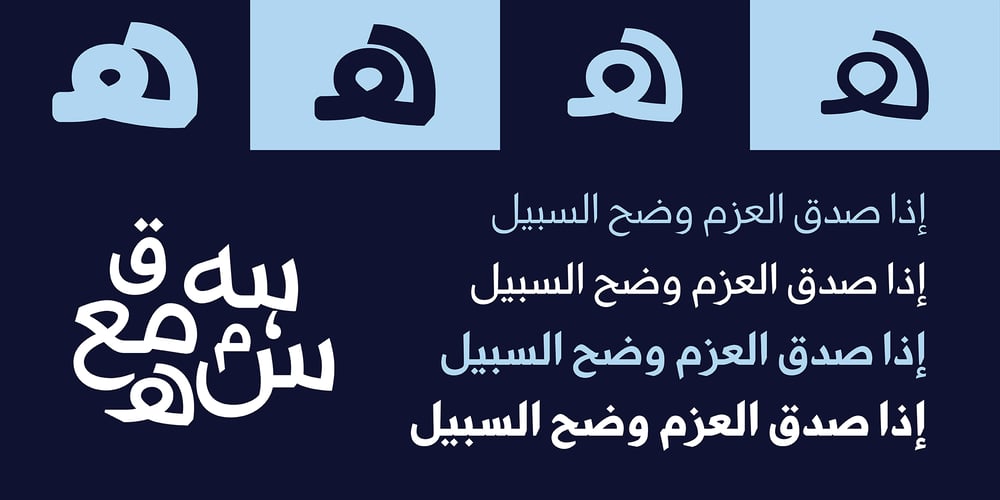
HS Almaha
HS Almaha font
HS Almaha Font Family was designed by Hasan Abu Afash and published by Hiba Studio. HS Almaha contains 4 styles and family package options. HS Almaha is a modern OpenType Arabic Typeface. It combines the features of linear Naskh and modern Kufi. Segments of its letters are curvy and sharp. They are refinement more readable and present in extended texts in magazines, newspapers, books and other publications. This typeface supports Arabic, Persian, Urdu and Kurdish languages and it contains four weights; light, regular, medium and bold which can add to the library of Arabic fonts contemporary models that meet with the purposes of various designs for all tastes.